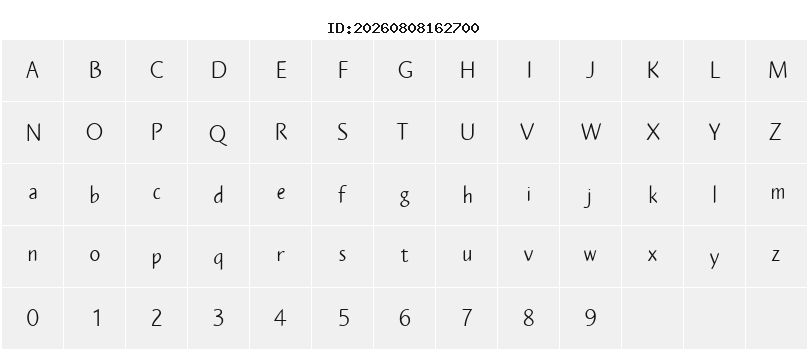
About Plumeria Sans.ttf
Plumeria Sans.ttf is a modern, elegant sans-serif font designed for ultimate readability and visual harmony. Perfect for branding, headlines, web design, and print materials.